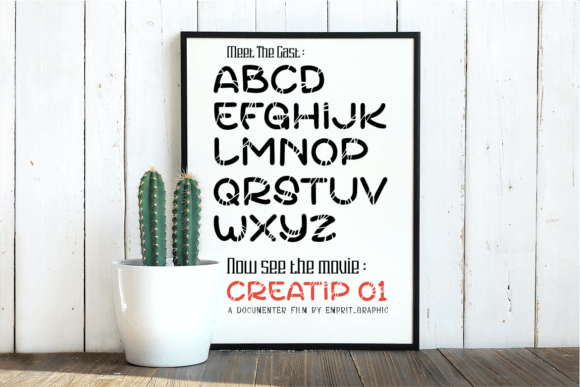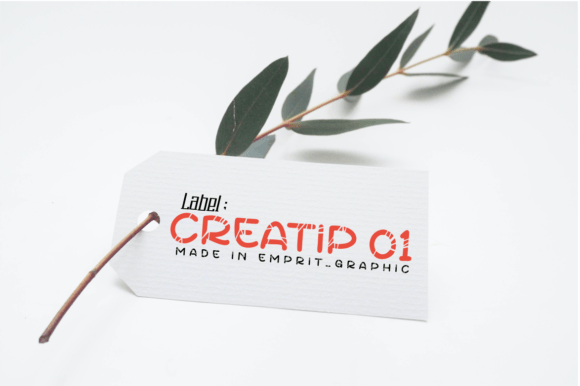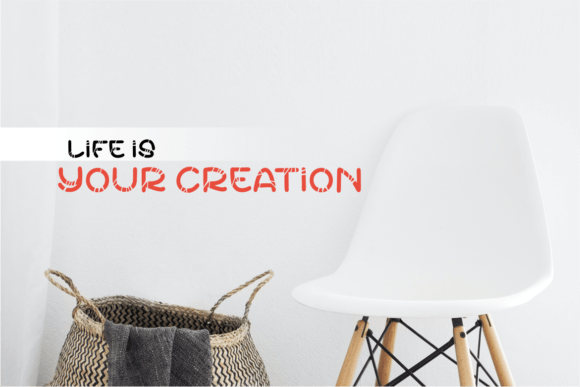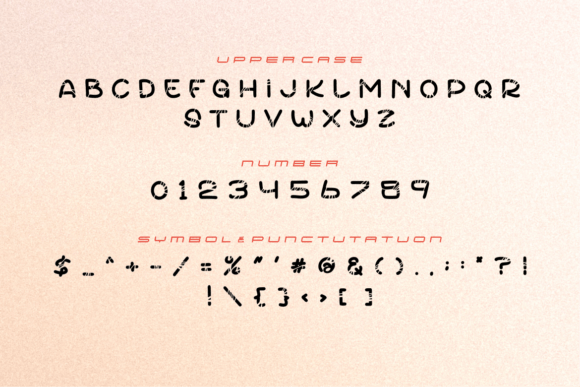
Creatip 01 Font: Elevate Your Designs with a Unique Display Font
In the world of typography, fonts play a crucial role in conveying messages, expressing emotions, and capturing attention. For designers and crafters, finding the perfect font can make all the difference in creating visually stunning and effective designs. This is where Creatip 01 comes in – a captivating display font that features broken letters, adding a unique and artistic touch to your text.
The Distinctive Design of Creatip 01
Creatip 01 is a one-of-a-kind font that boasts a distinctive design, characterized by broken letters that give your words a visually striking and attention-grabbing appearance. This font is perfect for designers and crafters looking to add an edgy, artistic touch to their projects. Whether you’re working on eye-catching headlines, posters, or creative projects, Creatip 01 is sure to make your text stand out.
Perfect for Eye-Catching Headlines and Posters
When it comes to creating eye-catching headlines and posters, the font you choose can make all the difference. Creatip 01 is specifically designed to grab attention and make a lasting impression. Its unique, broken letter design adds a touch of creativity and artistic flair to your text, making it perfect for:
• Headlines: Use Creatip 01 to create bold, attention-grabbing headlines that draw readers in.
• Posters: Add a touch of artistic flair to your posters with Creatip 01’s unique design.
• Signage: Use Creatip 01 to create eye-catching signs that stand out from the crowd.
Creative Projects and Creatip 01
Creatip 01 is not just limited to headlines and posters – it’s also perfect for a wide range of creative projects, including:
• Logo design: Use Creatip 01 to create a unique and memorable logo for your brand.
• Brochures: Add a touch of creativity to your brochures with Creatip 01’s distinctive design.
• Social media graphics: Use Creatip 01 to create eye-catching social media graphics that grab attention.
Why Choose Creatip 01?
With so many fonts to choose from, why should you choose Creatip 01? Here are just a few reasons:
• Unique design: Creatip 01’s broken letter design sets it apart from other fonts.
• Attention-grabbing: Creatip 01 is designed to grab attention and make a lasting impression.
• Versatile: Creatip 01 can be used for a wide range of projects, from headlines and posters to logos and social media graphics.
Tips for Using Creatip 01
To get the most out of Creatip 01, here are a few tips:
• Use it sparingly: Creatip 01 is a bold font, so use it sparingly to avoid overwhelming your design.
• Pair it with a simple font: Pair Creatip 01 with a simple font to create visual contrast and make your design more effective.
• Experiment with colors: Creatip 01 looks great in a range of colors, so don’t be afraid to experiment and find the perfect hue for your design.
Creatip 01 is a captivating display font that features broken letters, adding a unique and artistic touch to your text. Its distinctive design makes it perfect for eye-catching headlines, posters, and creative projects. With its versatility, attention-grabbing design, and unique style, Creatip 01 is a must-have font for designers and crafters looking to elevate their designs and make a lasting impression.